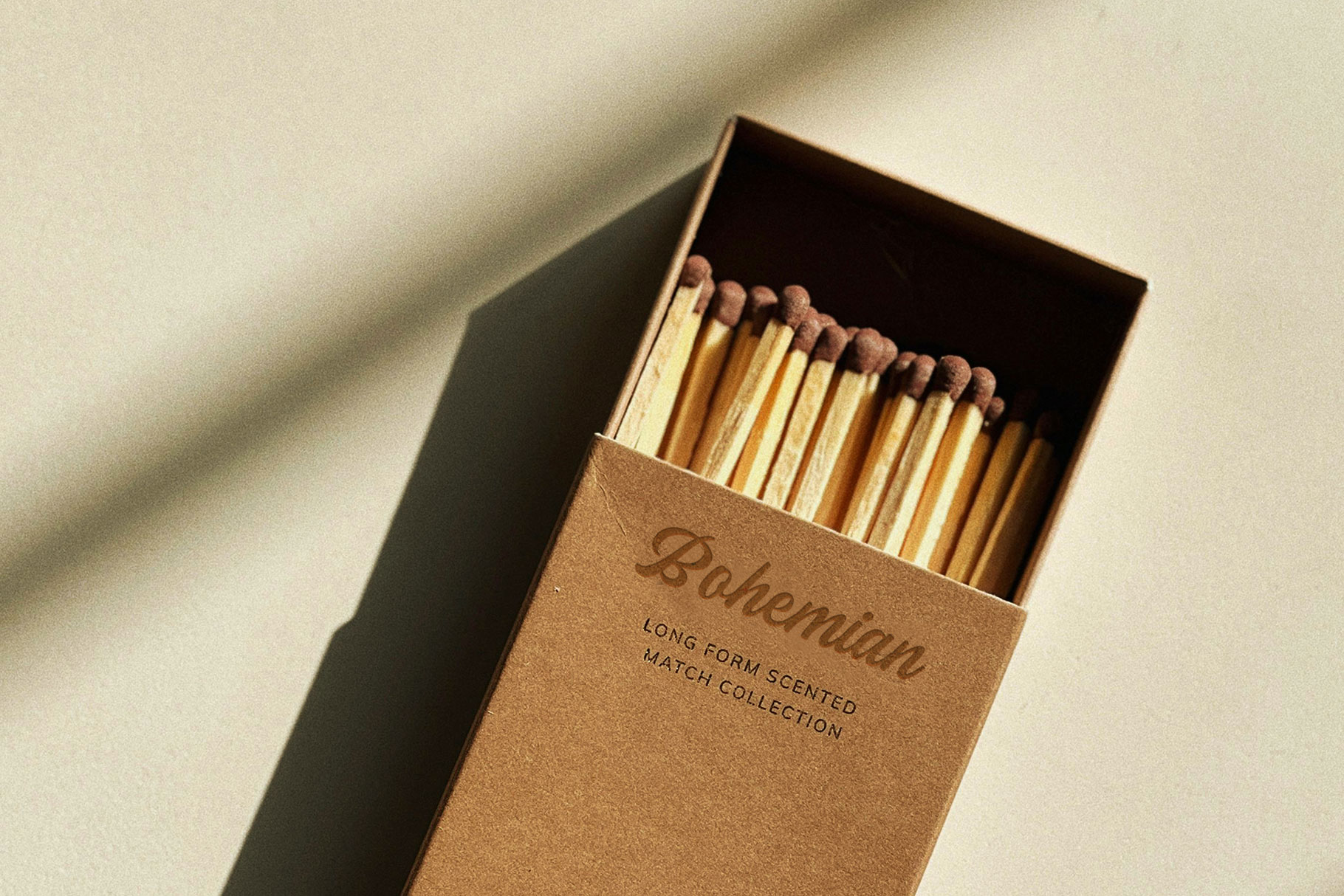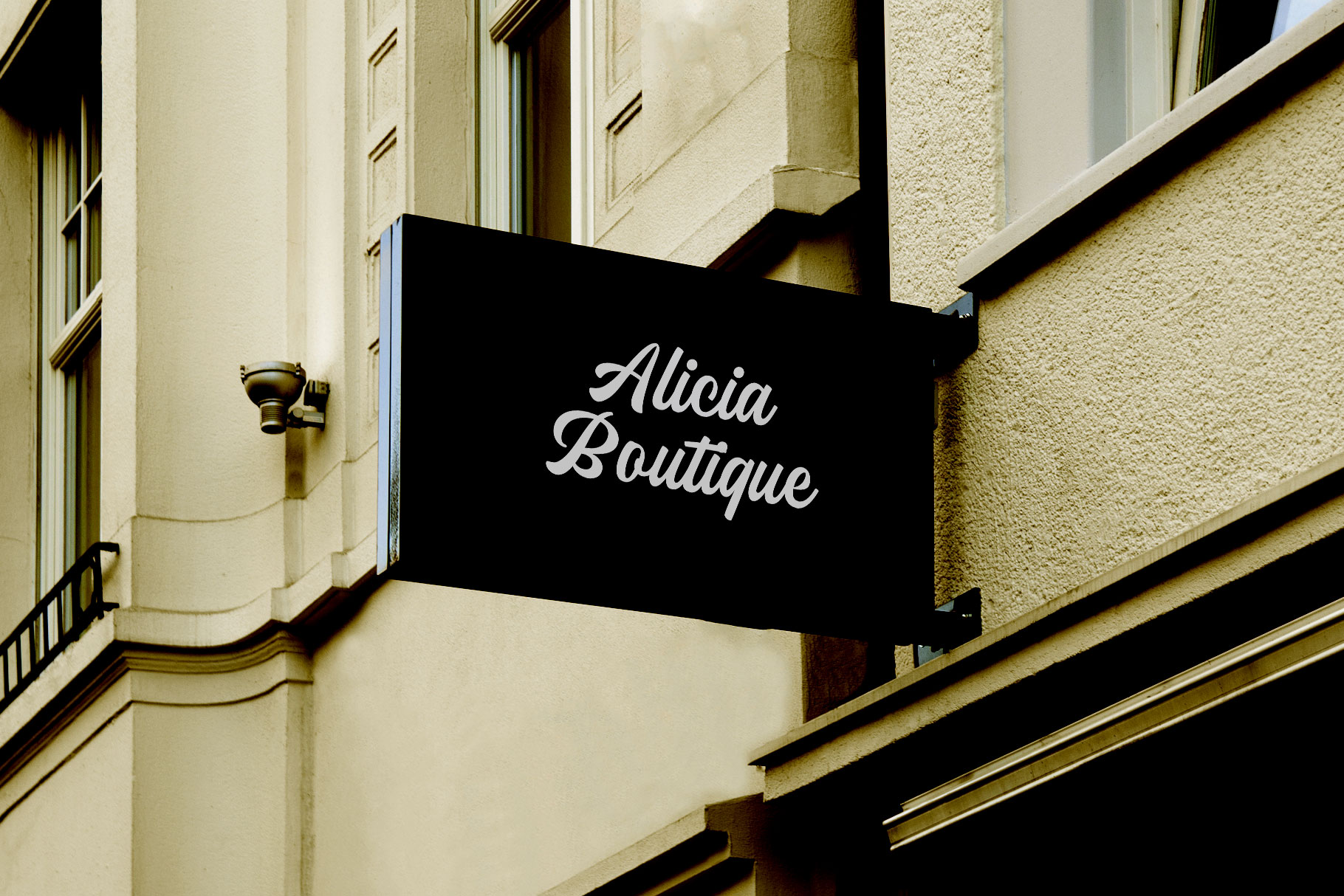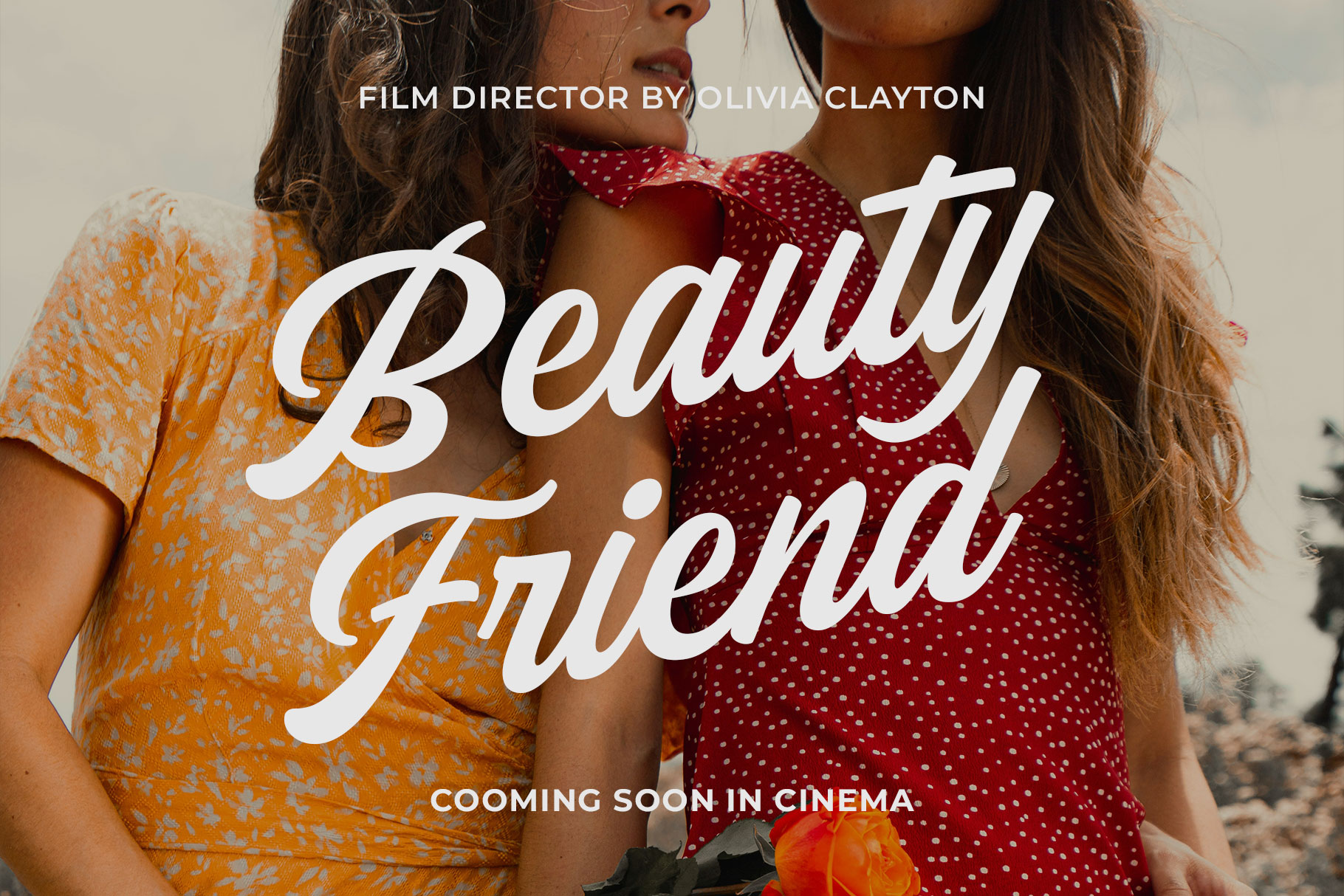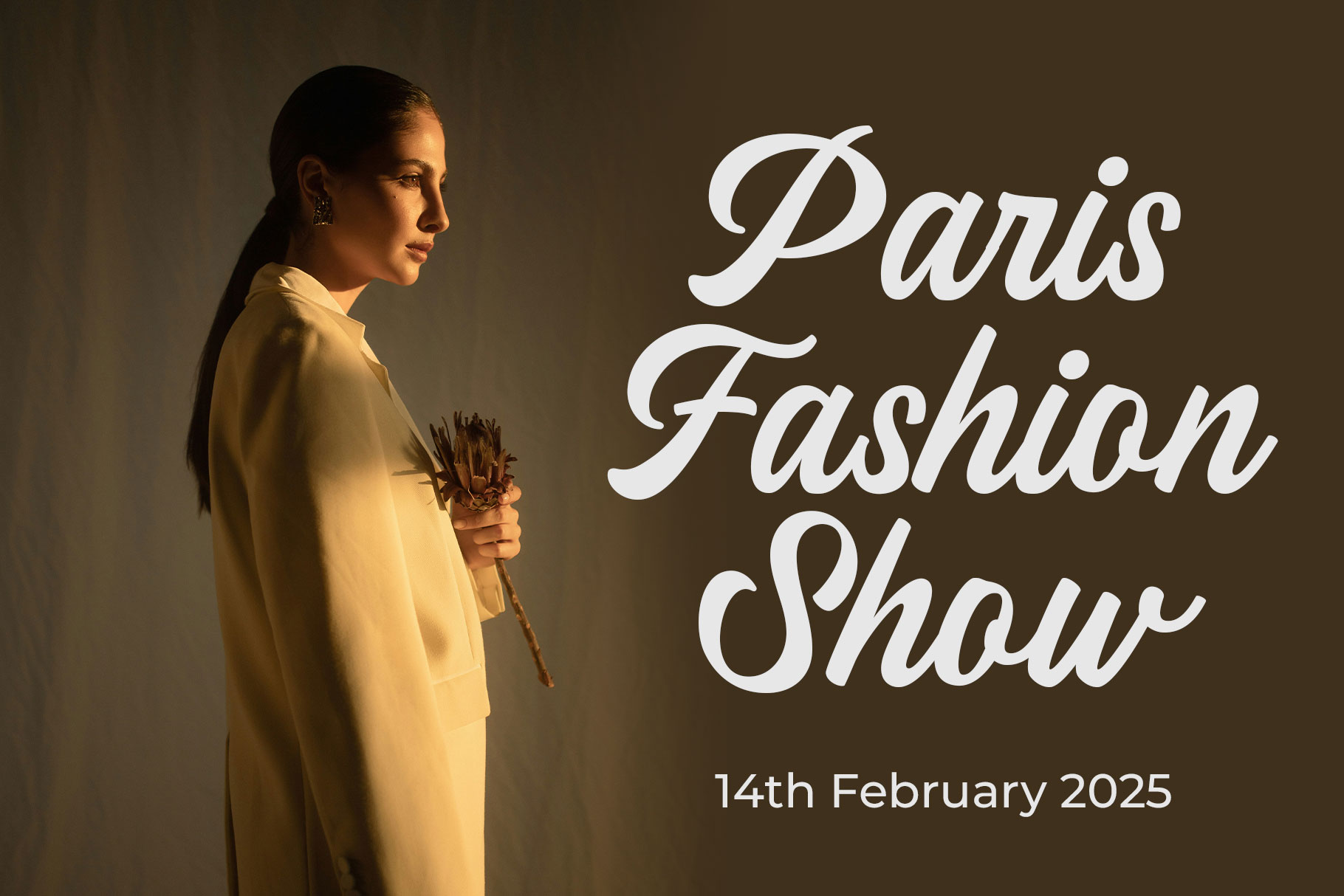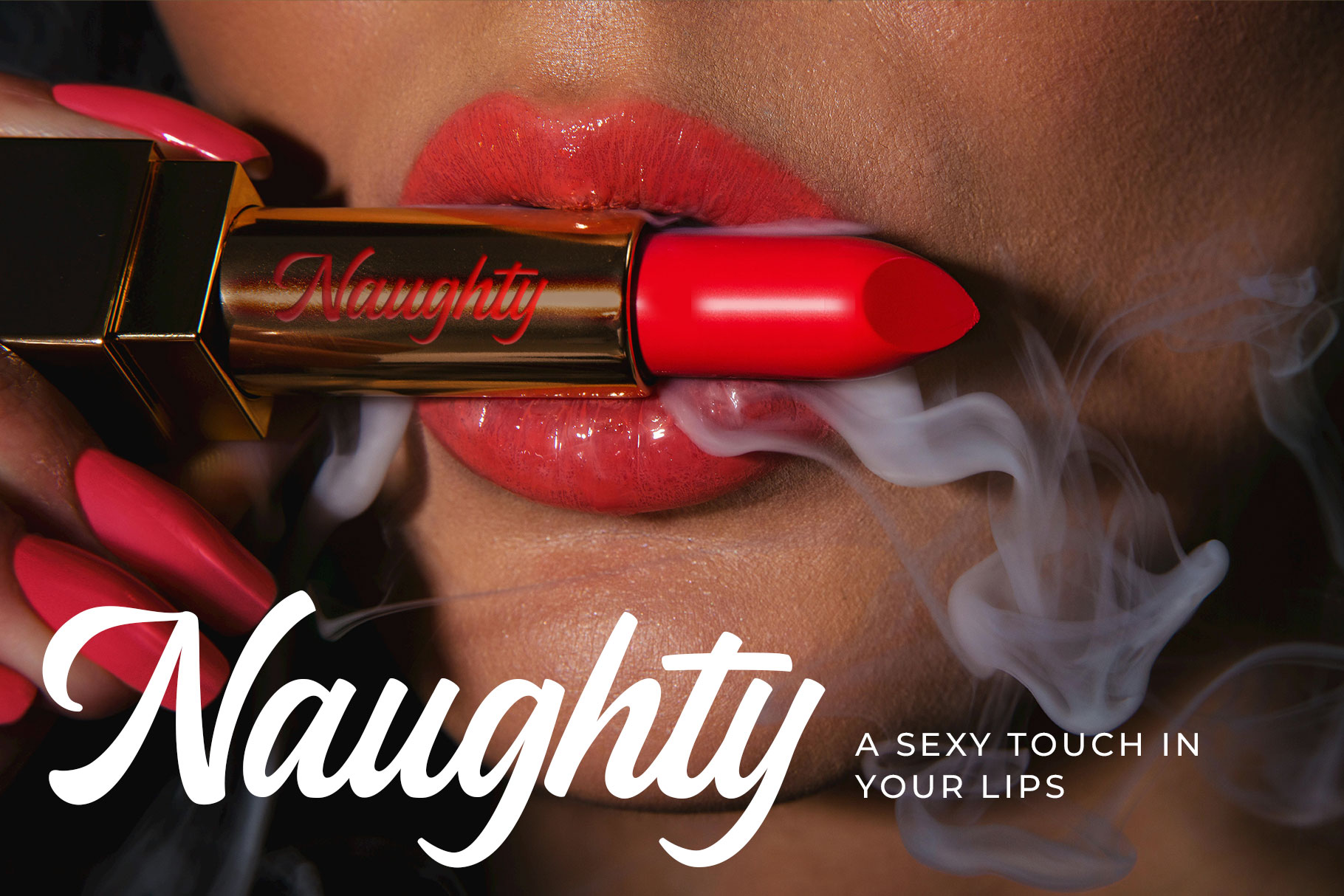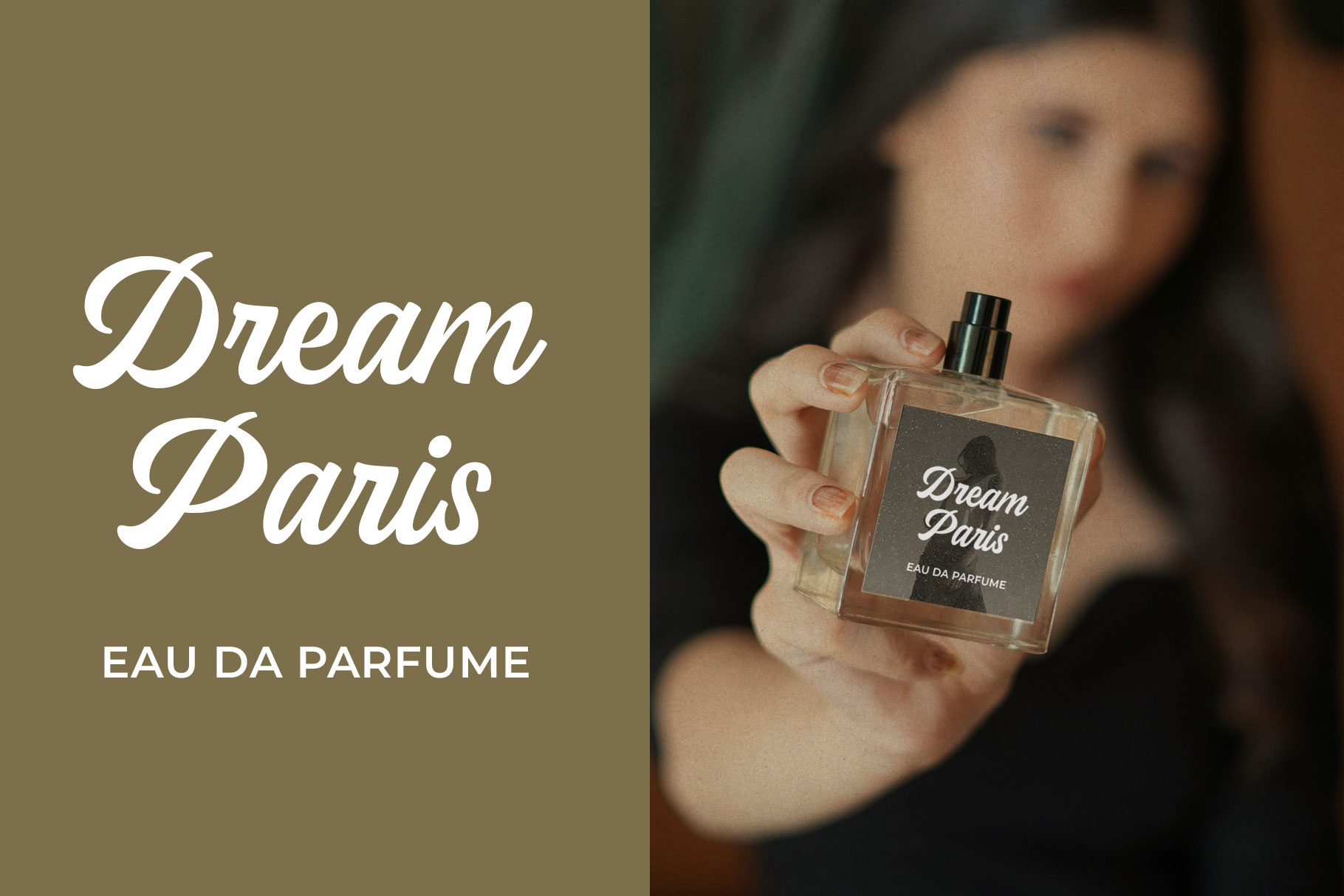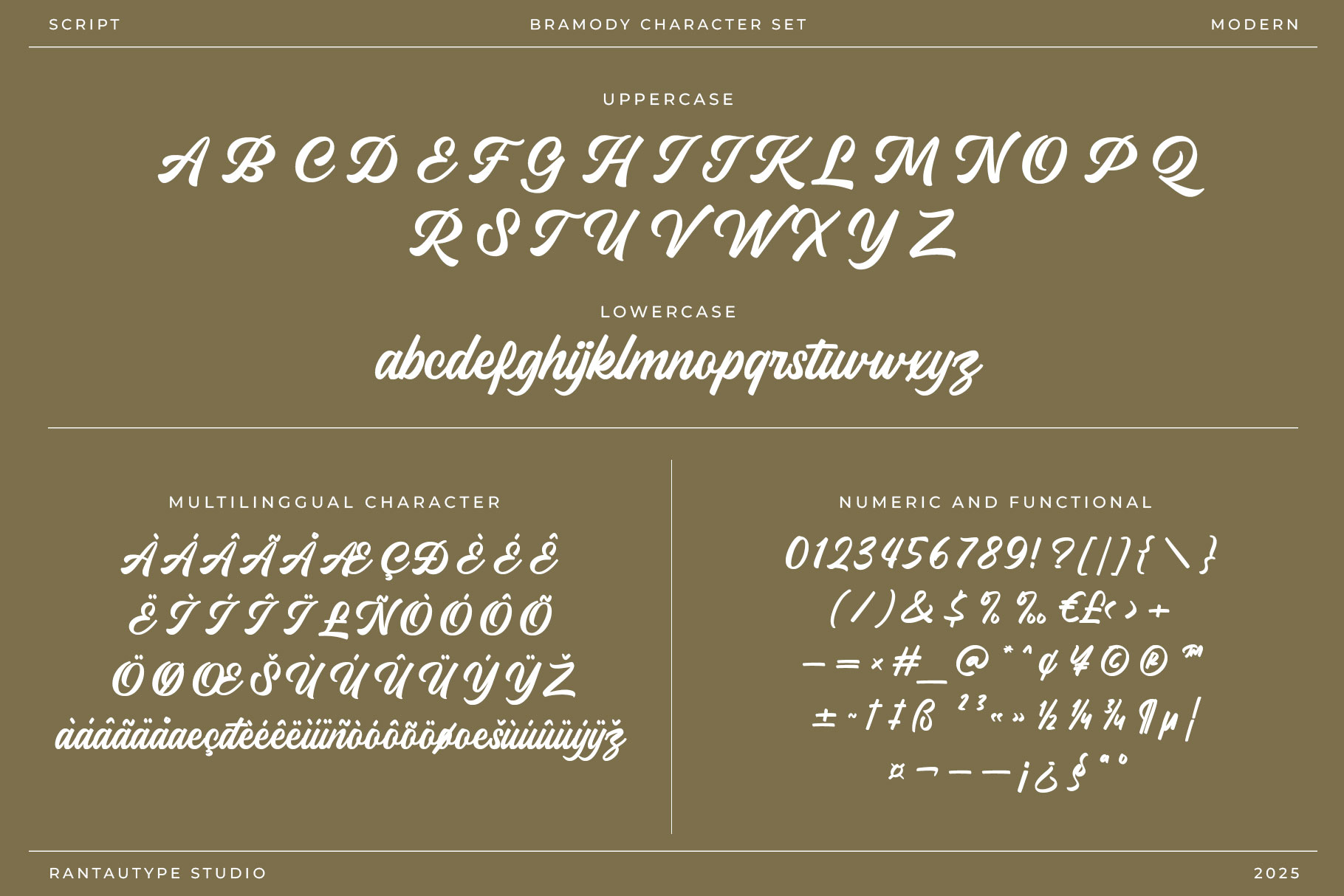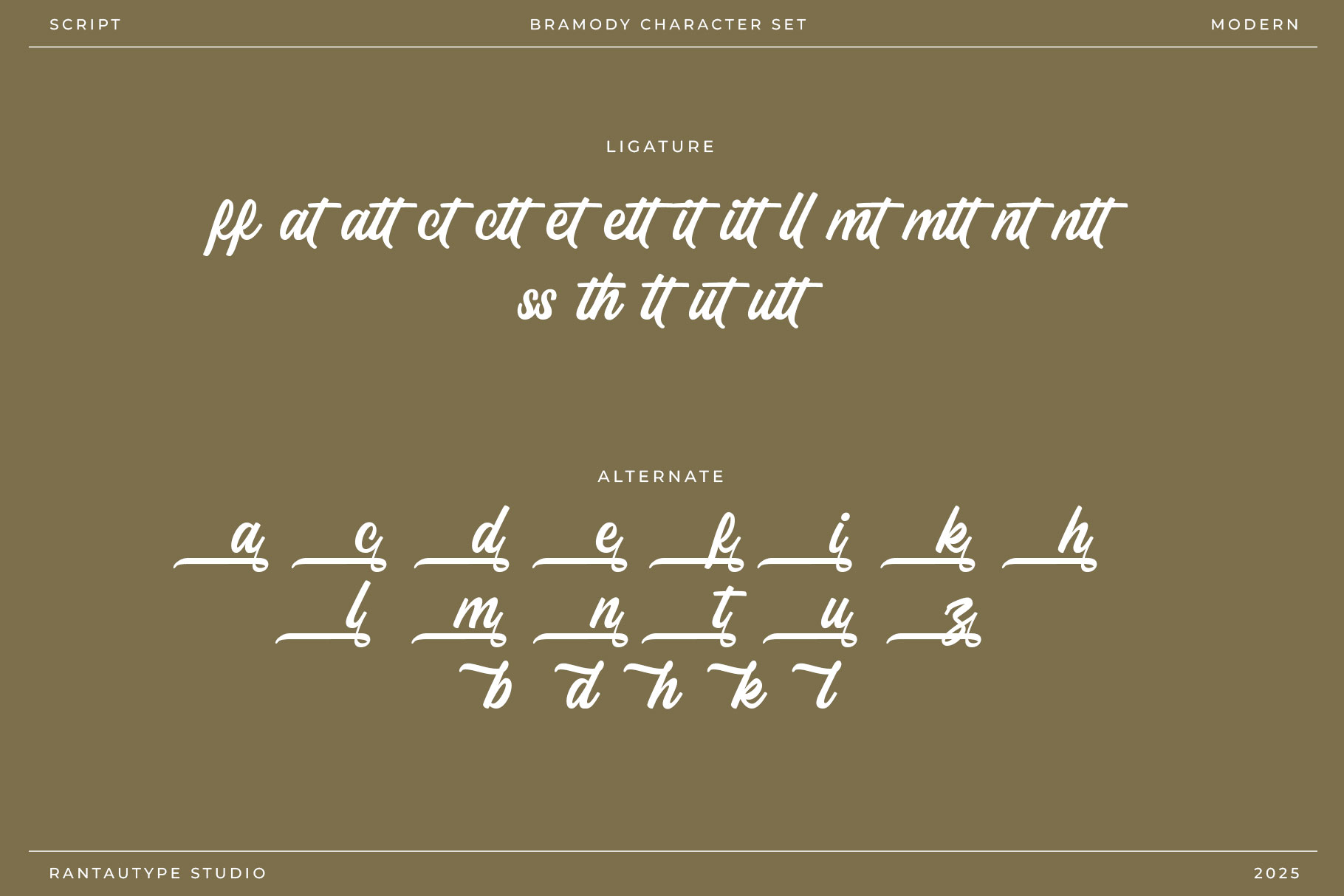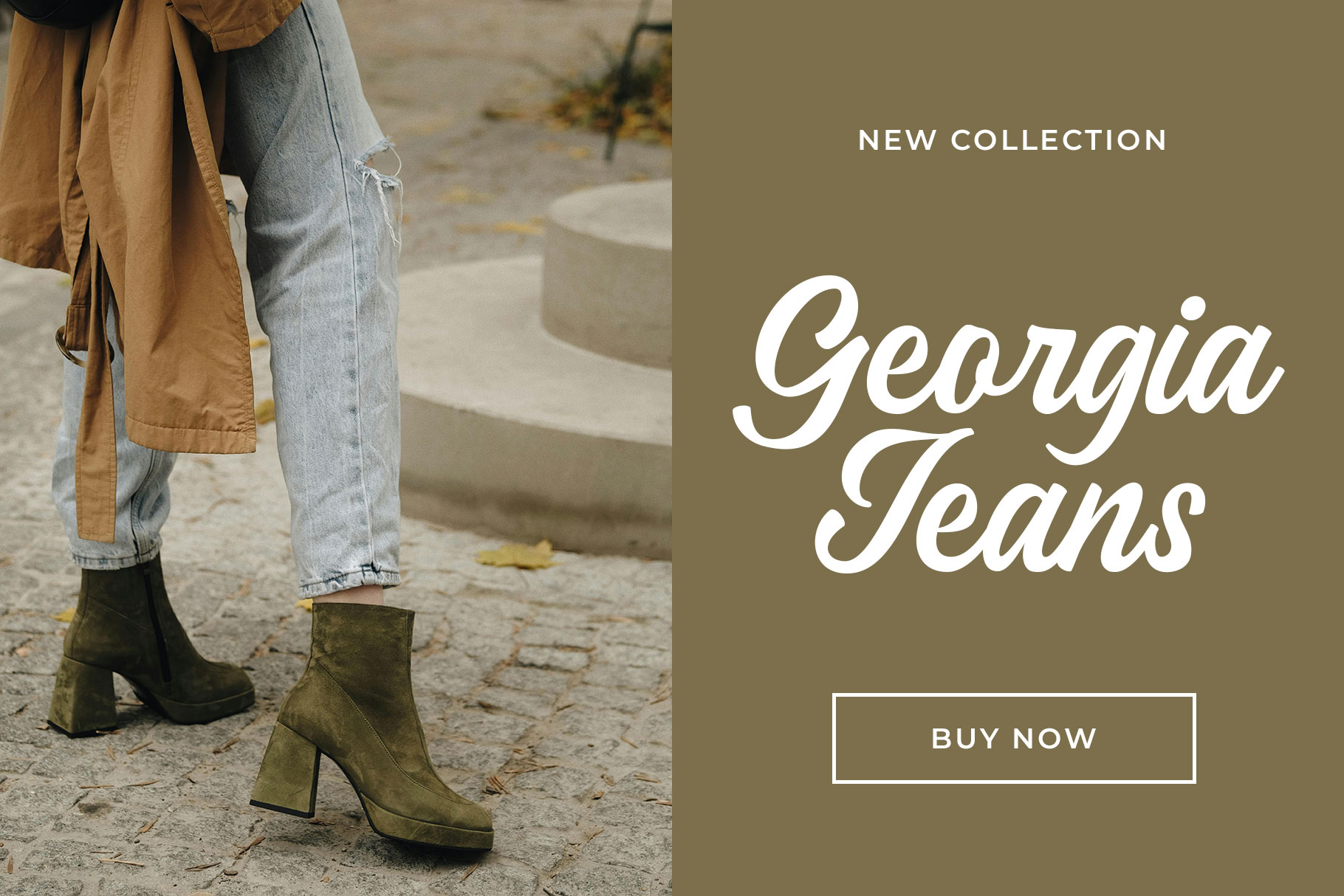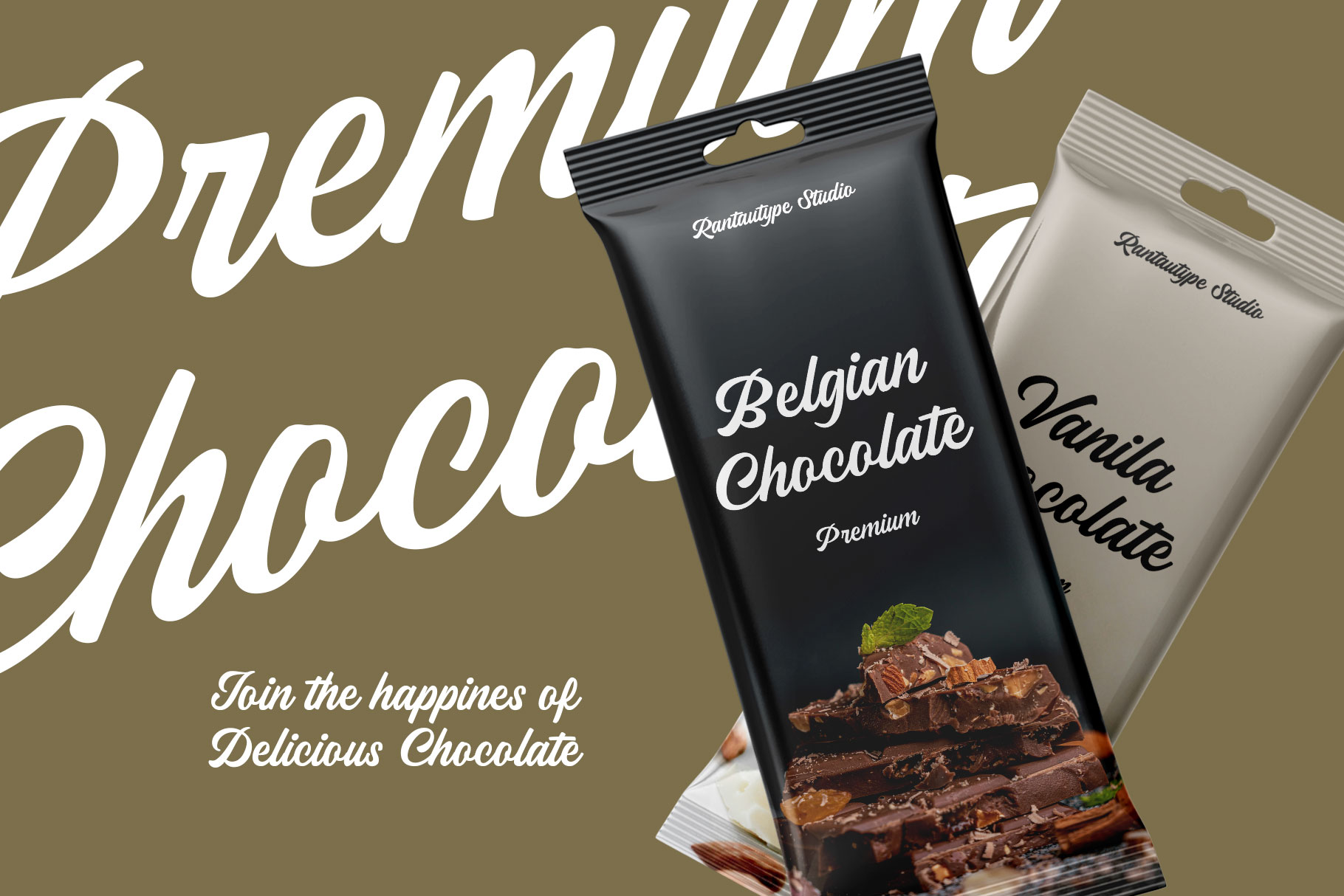
Bramody Modern Script Font
Bramody is modern script font with modern character. Bramody bring authentic handwritten font to make your design project stand out! Bramody is a perfectly choice for any creative endeavor, creating, modern, chic, lifestyle design such as logotype, title, cover, branding, invitations, wedding designs, display and magazine, social media posts, advertisements, printed quotes, product packaging, corporate brand, product designs, labels, photography, watermarks, special events and any other project with modern touch.